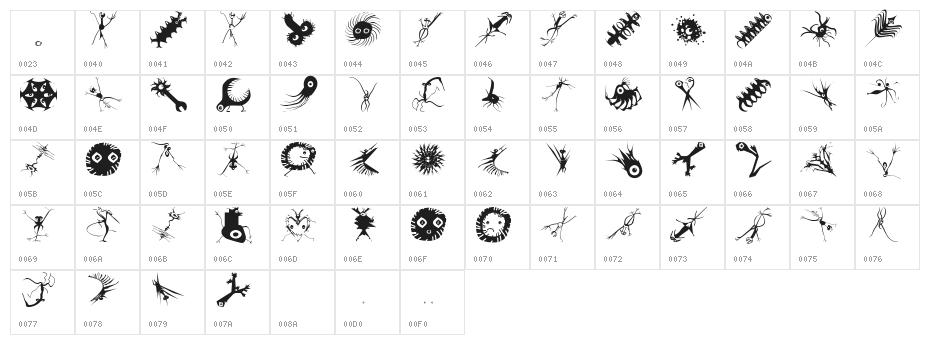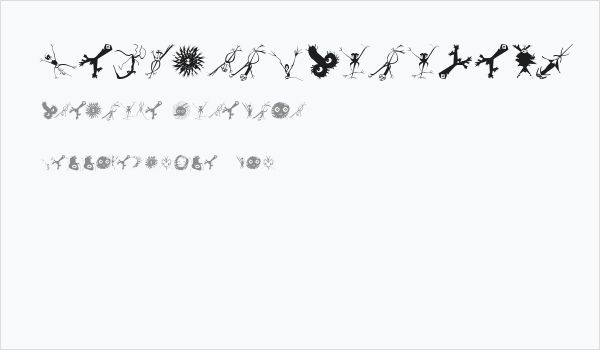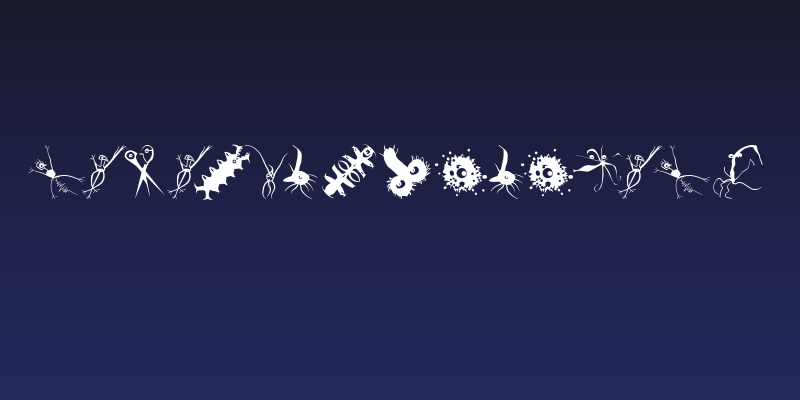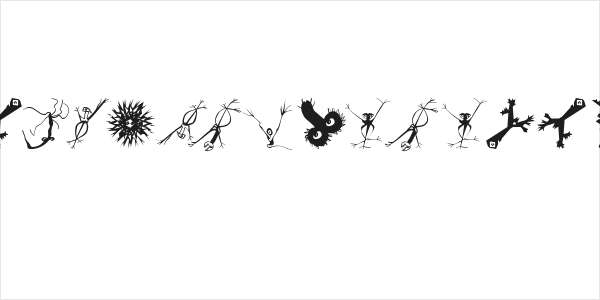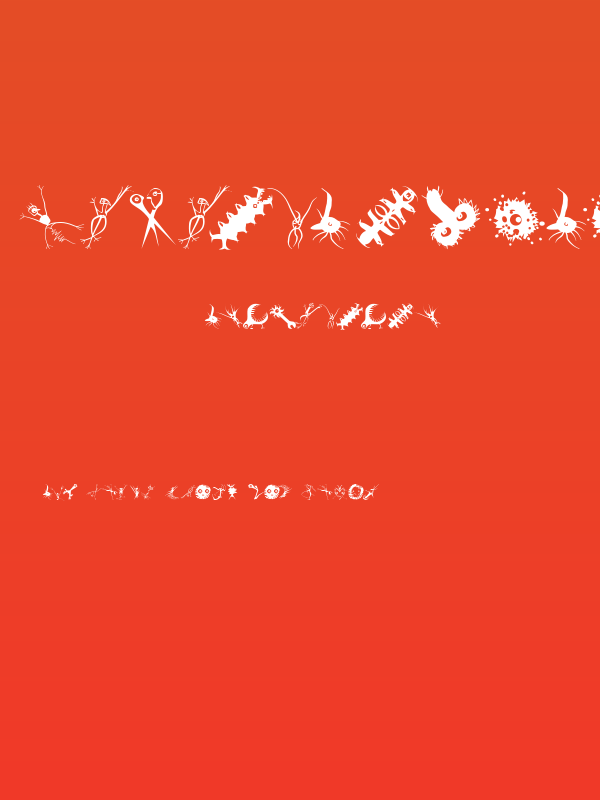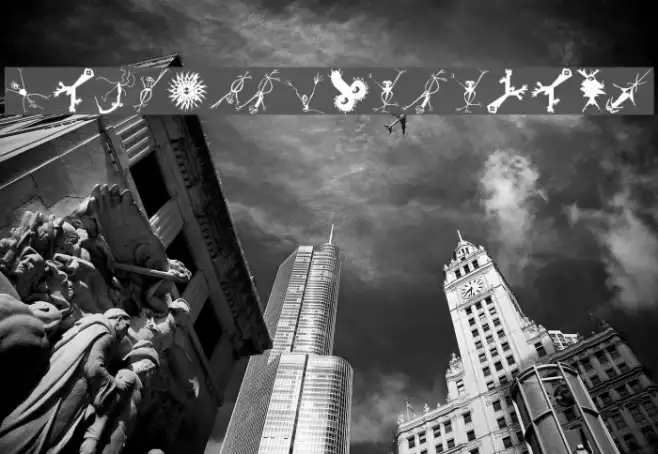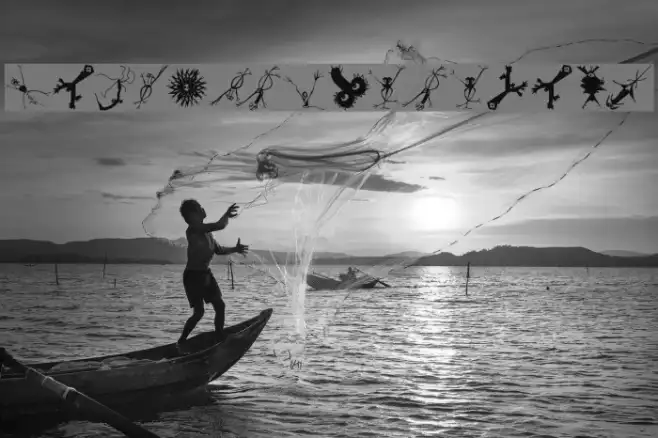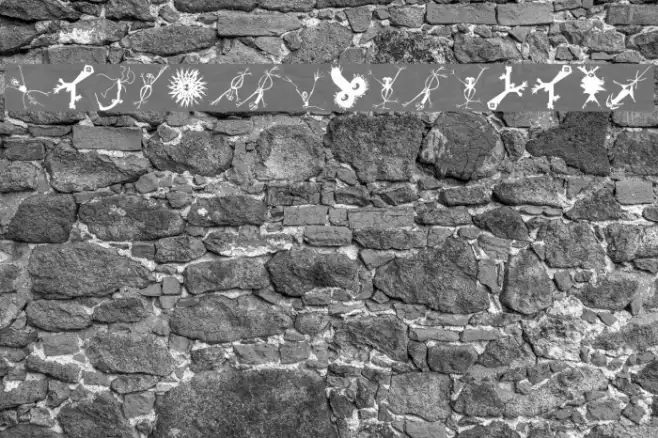
NewEarthCitizens Font
NewEarthCitizens Description
A highly decorative and whimsical display font featuring abstract, creature-like glyphs with playful, organic shapes and varying stroke thicknesses. Each character is unique, resembling imaginative doodles or alien figures.
| Overall Style | Decorative, Whimsical, Playful |
| Use Case | Logos, Headlines, Posters, Artistic projects |
| Proposed Projects | Children's books, fantasy posters, party invitations, creative branding, album covers, art projects. |